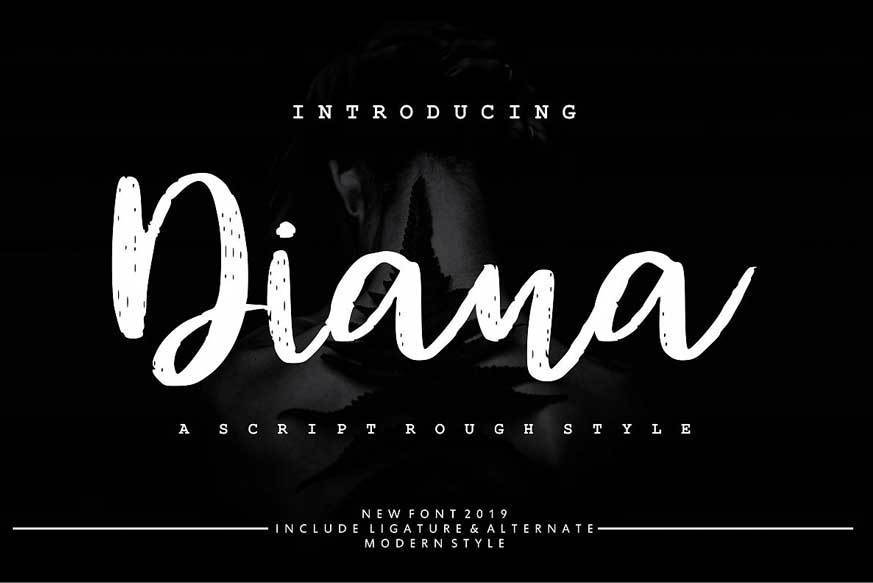
Diana Rough Font
Diana Rough | Script Rough Style with brush & calligraphy style, So beautiful on invitation like greeting cards, branding materials, business cards, quotes, posters, and more!